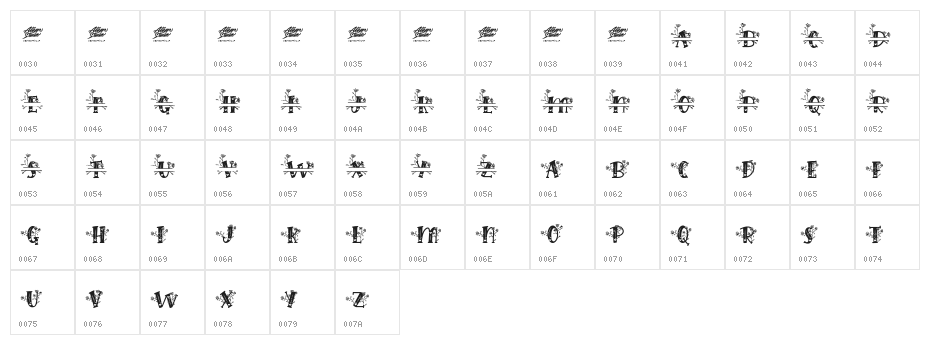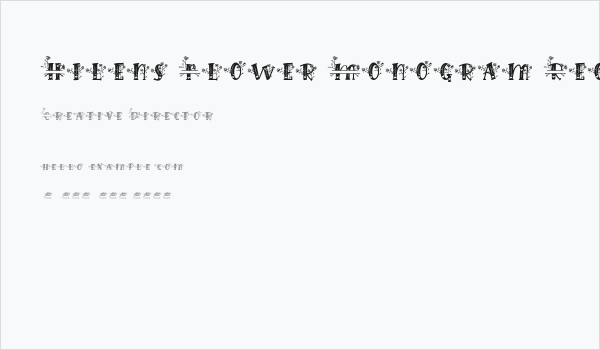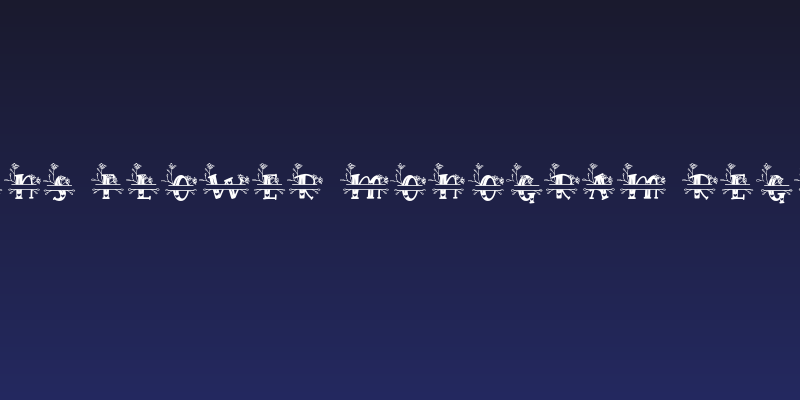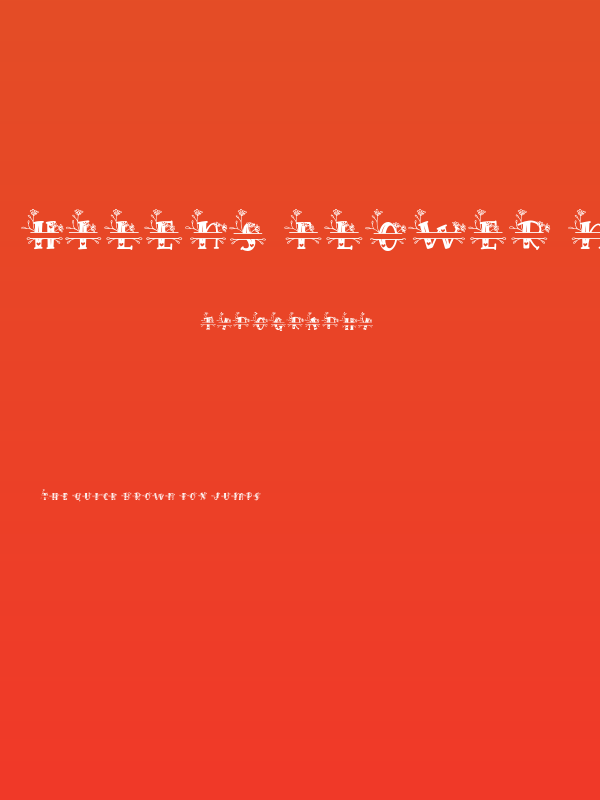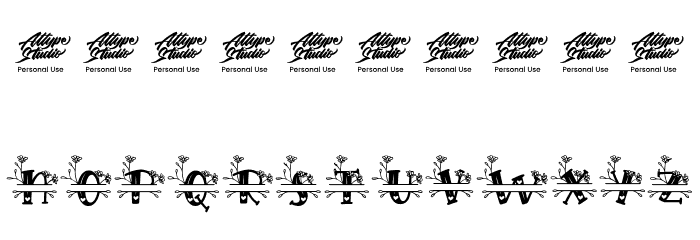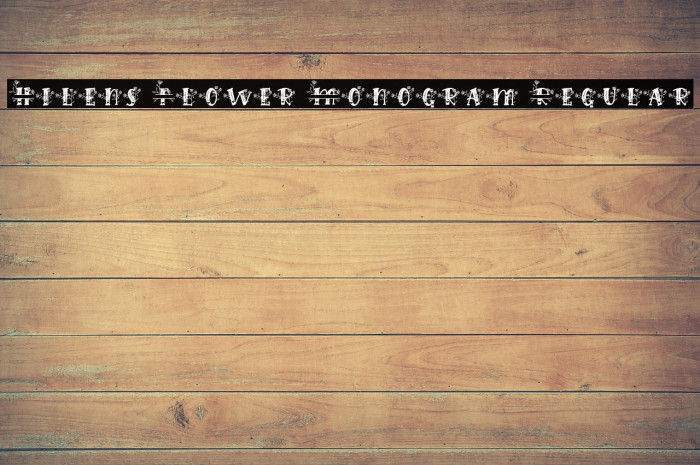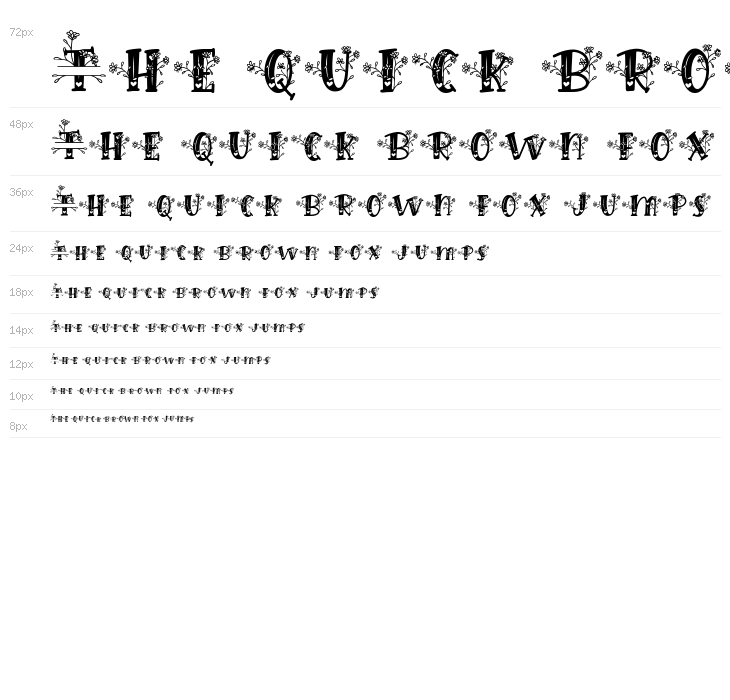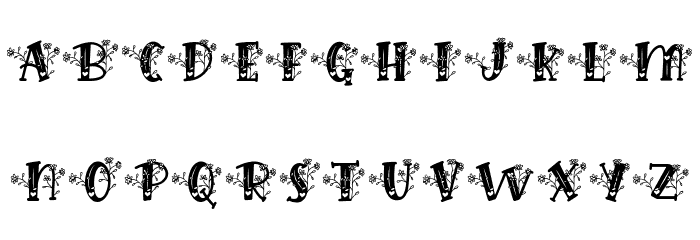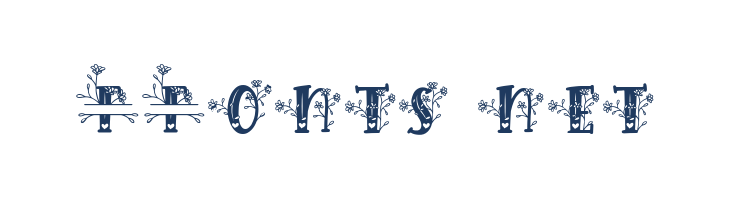
Hilens Flower Monogram Regular Font
This font features an intricate design that combines classic serif letterforms with decorative floral elements. Each character is adorned with elegant floral motifs, creating a harmonious blend of typography and nature. The uppercase letters are particularly ornate, with flowers and vines intertwining around the serif structures, giving a sophisticated and artistic appearance. The overall design is balanced, with each letter maintaining readability while showcasing its decorative elements. This font is ideal for projects that require a touch of elegance and creativity, such as wedding invitations, greeting cards, or branding for luxury products.
| Proposed Projects | Ideal for wedding invitations, greeting cards, luxury branding, and artistic projects. |